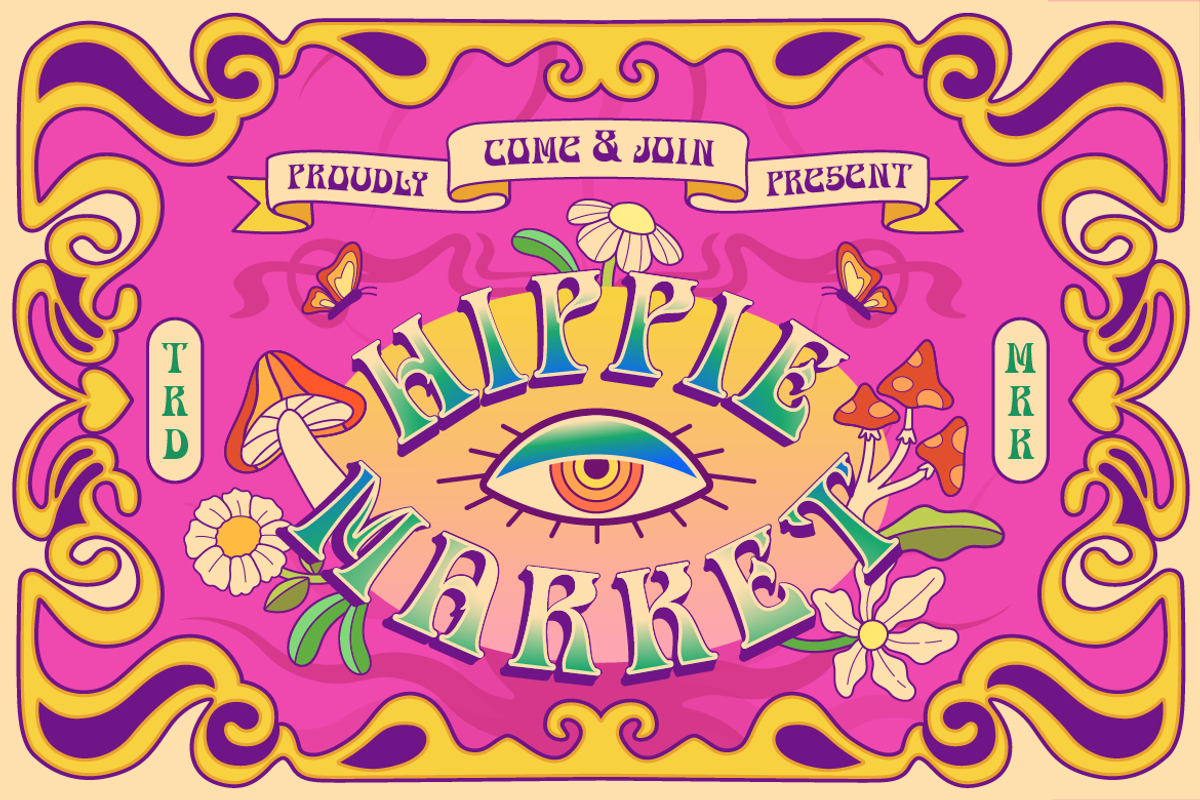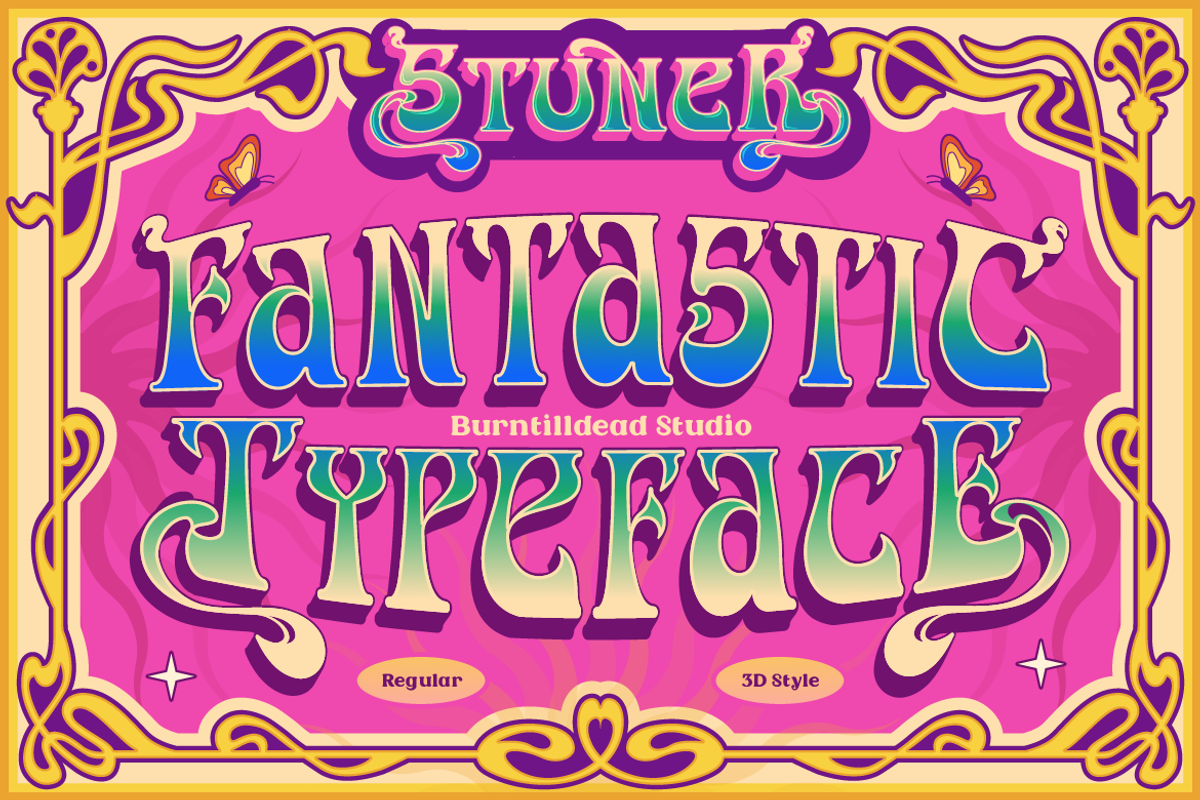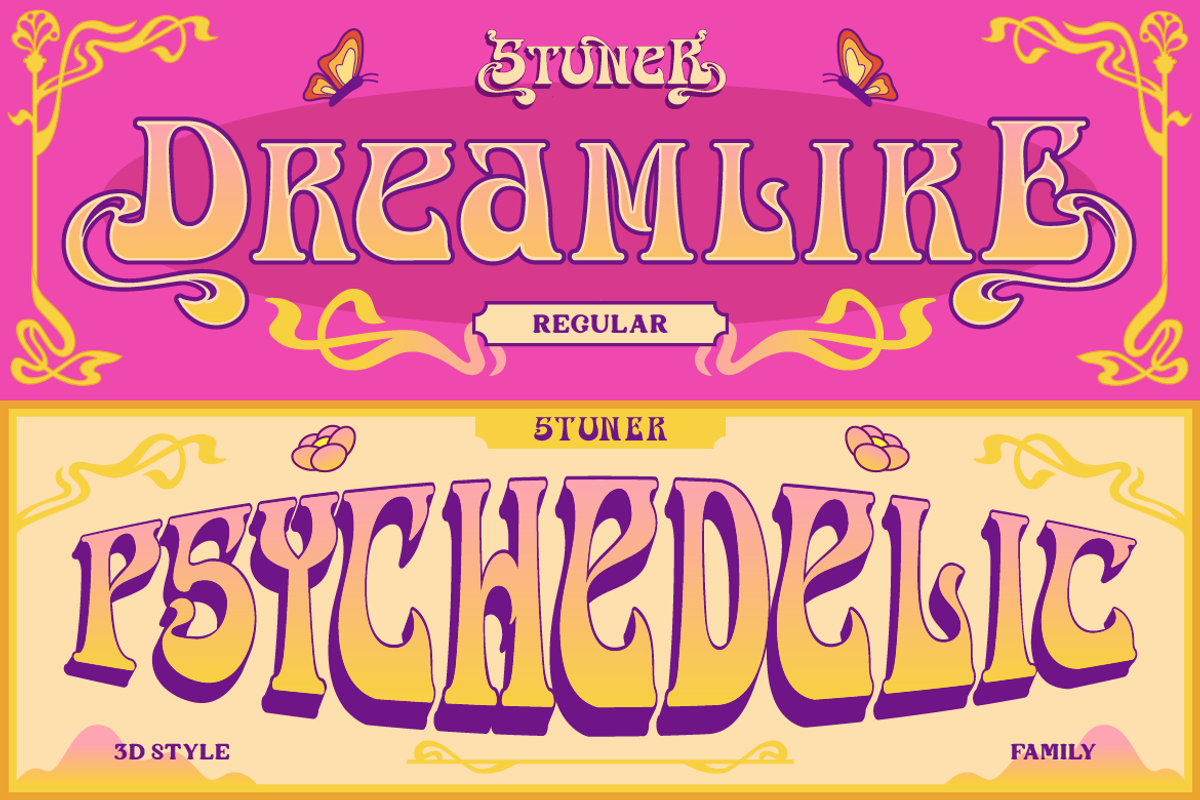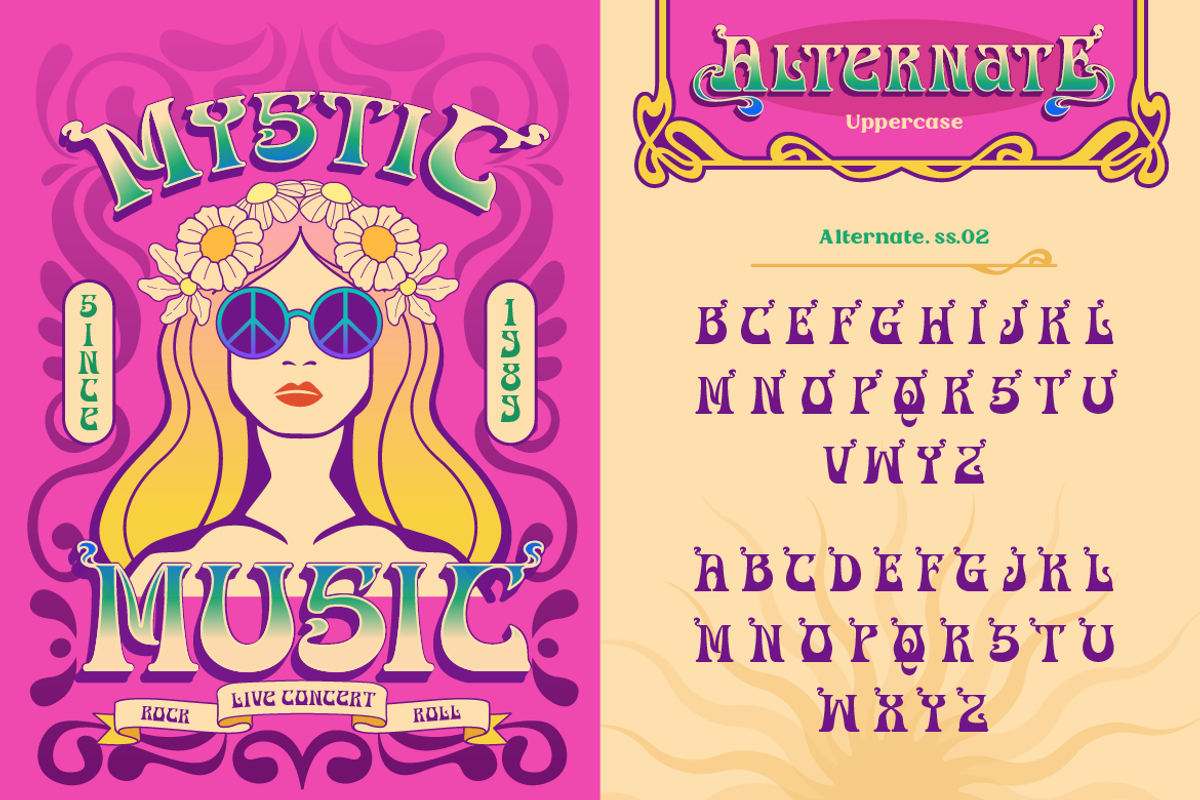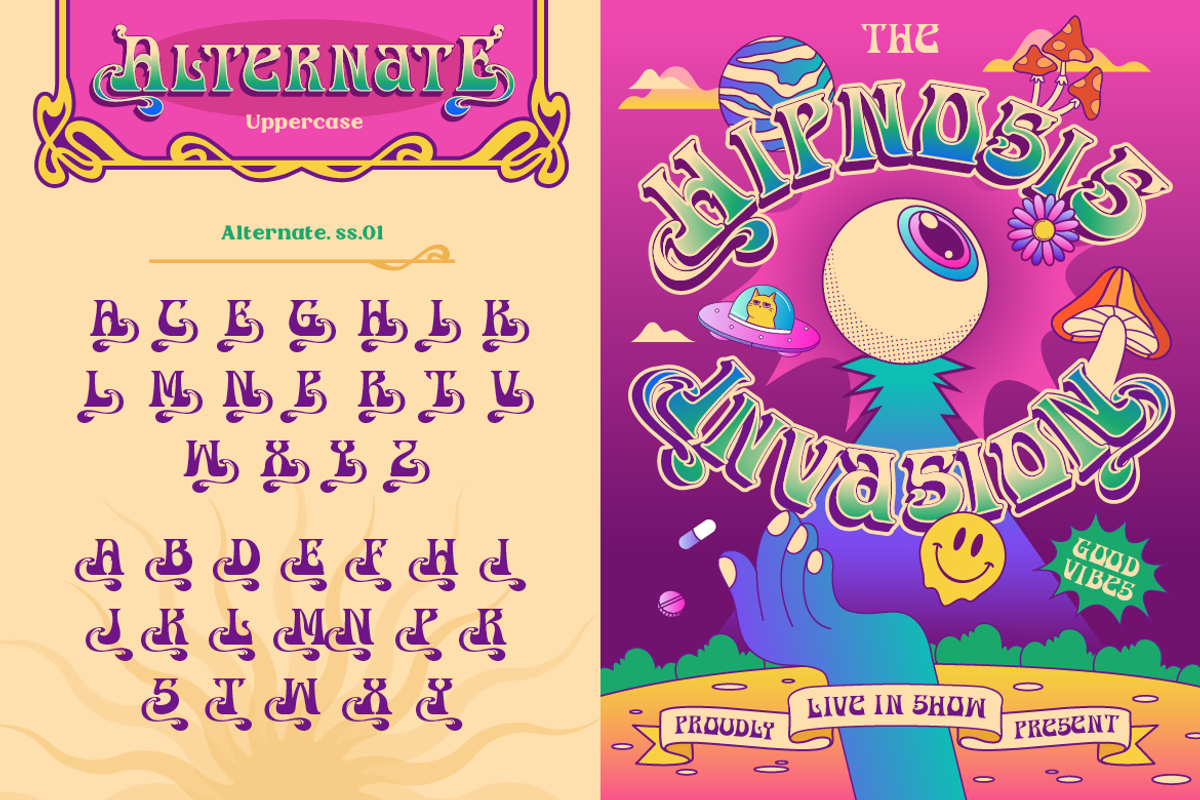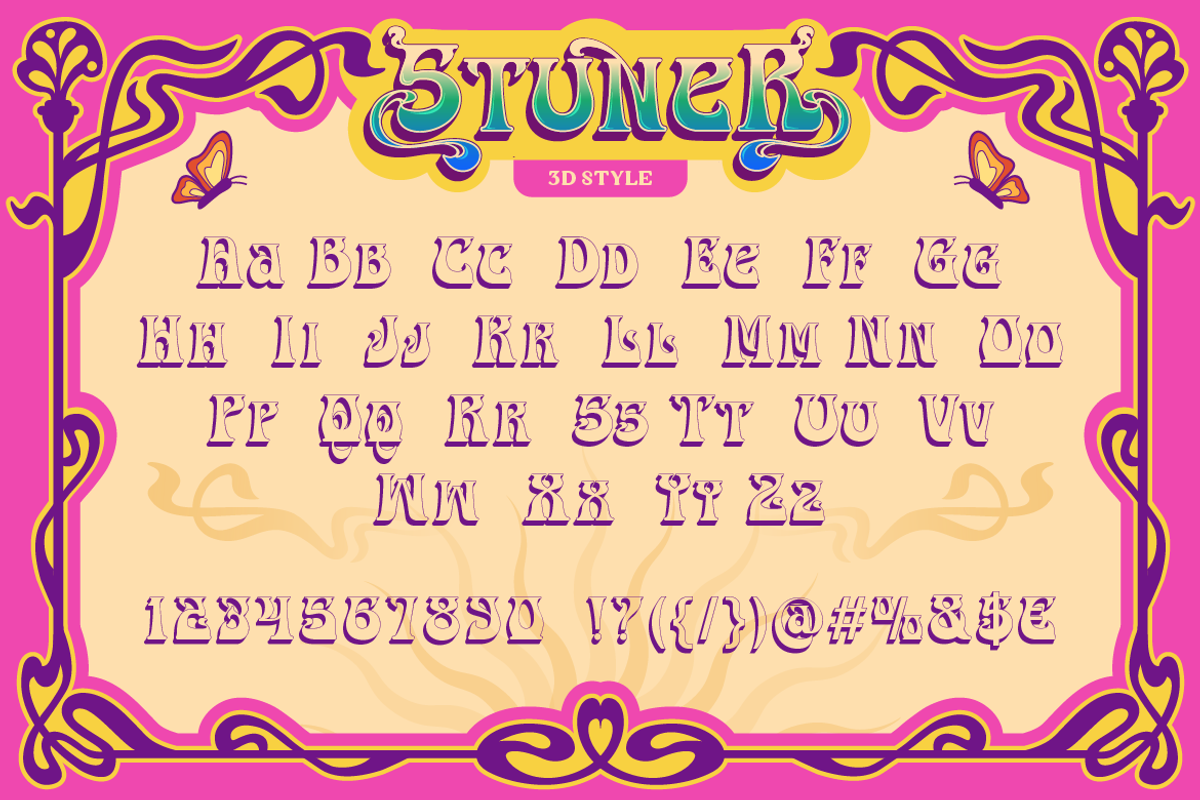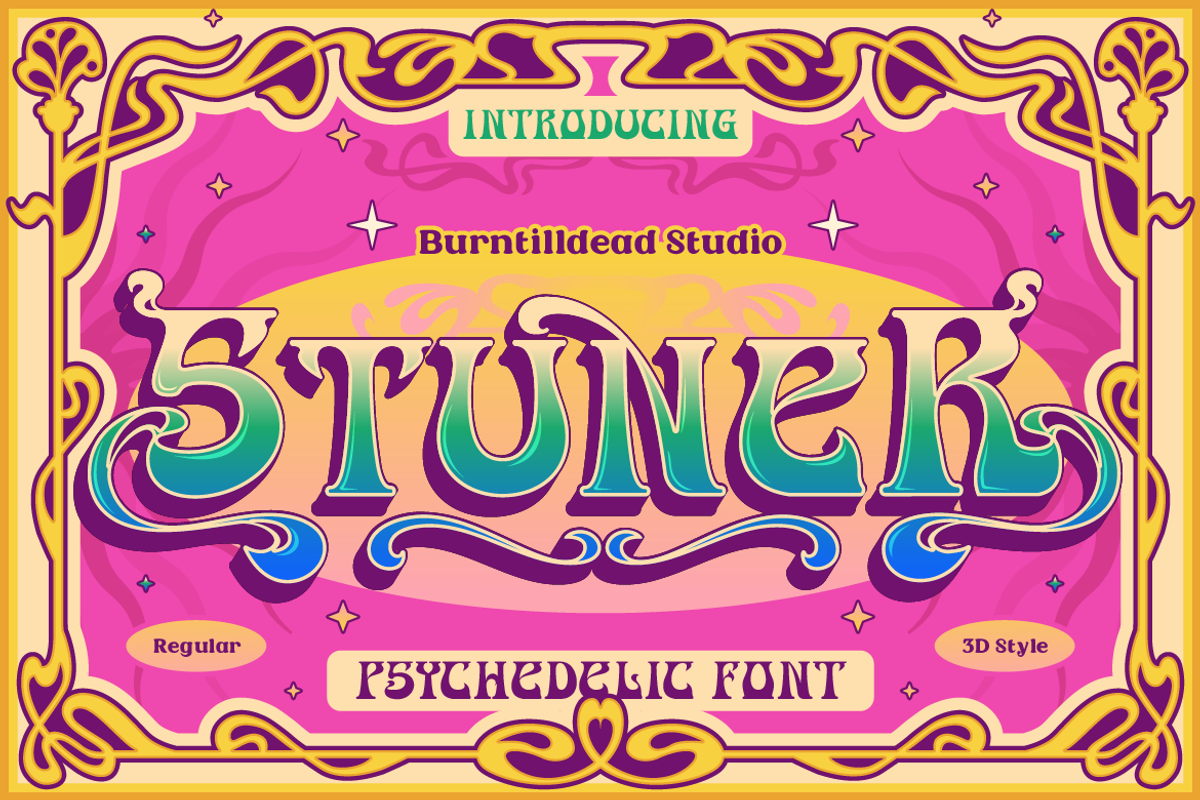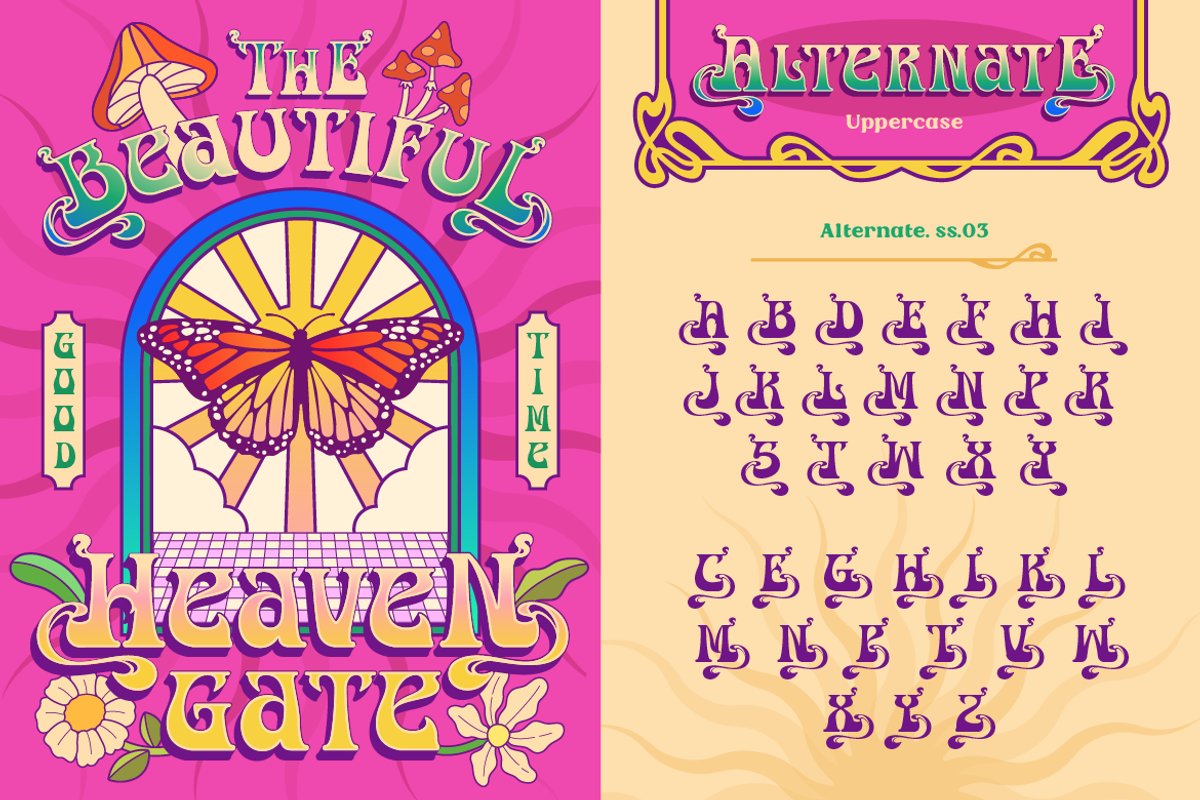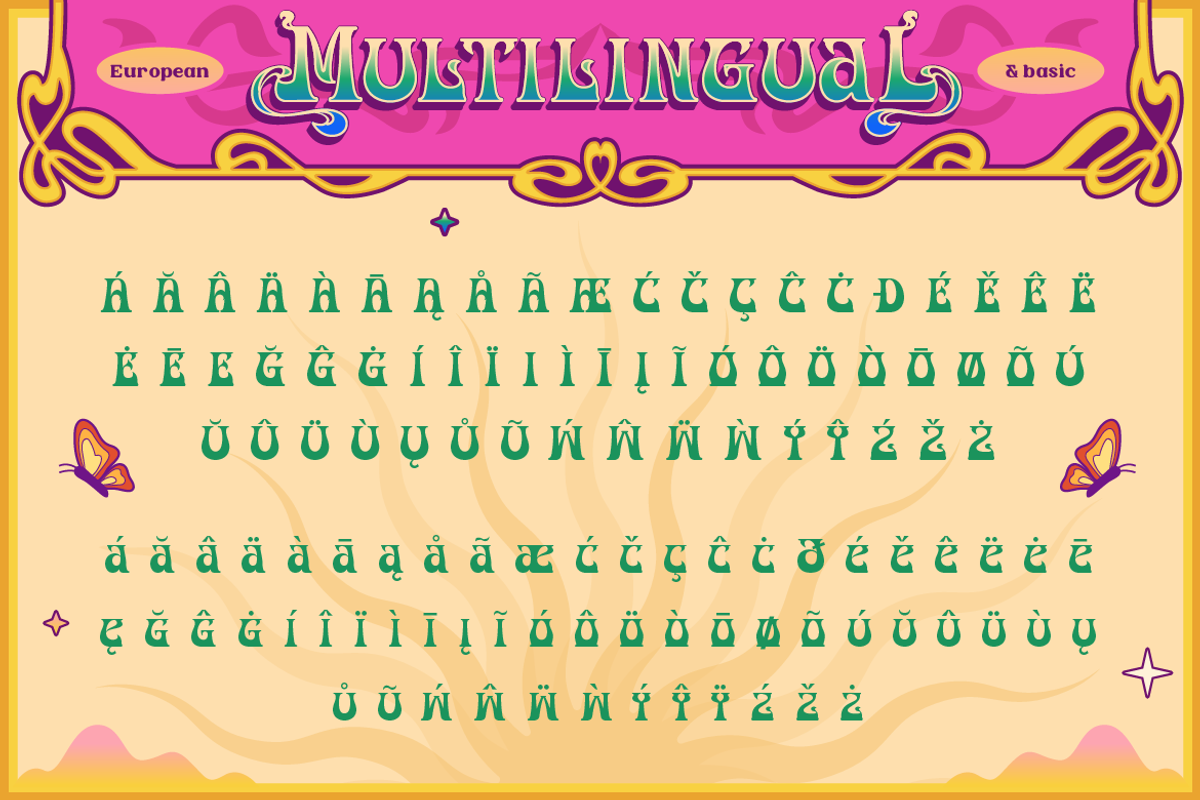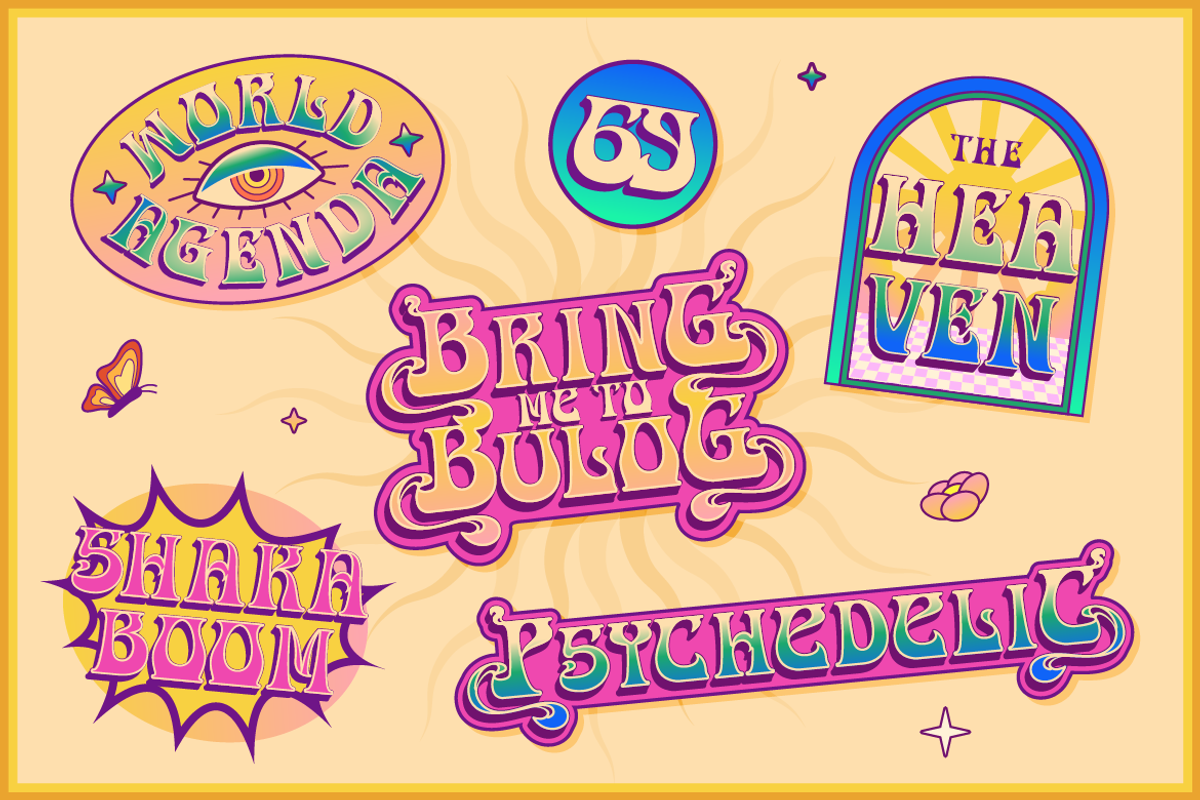
Stuner – Psychedelic Font
Proudly present, Stuner, a playful, psychedelic font that blends 60s-70s retro energy with a contemporary edge. Available in 2 styles: Regular & 3D. Its asymmetrical shapes give it a handmade, vintage feel, while the 3D style makes the letters look like they are getting high off the page with trippy dimensional effect.
Ideal for:
Concert/festival posters
Indie album covers
Merchandise (tees, stickers)
Sci-fi/fantasy movie titles
Social media quote graphics
Let Stuner turn your designs into a trippy visual experience!